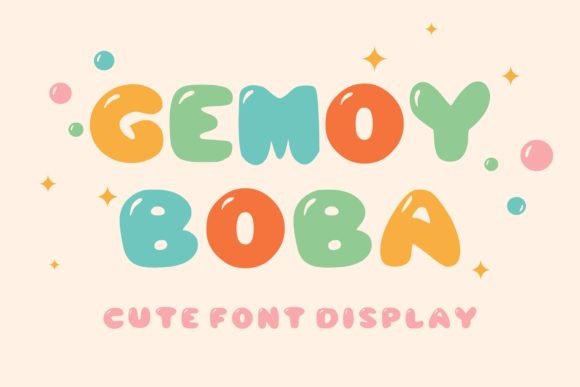
Introducing Gemoy Boba Font: The Perfect Choice for Whimsical Designs
In the world of typography, fonts play a crucial role in conveying emotions and setting the tone for various designs. If you’re looking for a font that exudes a playful and youthful vibe, look no further than the Gemoy Boba Font. This delightful font is perfect for those who want to add a touch of whimsy to their designs, making it ideal for creating visually appealing content for kids and adults alike.
What Makes Gemoy Boba Font So Special?
Gemoy Boba Font is a unique and charming typeface that boasts a distinctive, bubbly style reminiscent of boba tea. Its playful and carefree design makes it perfect for a wide range of applications, from designing t-shirts and tote bags to creating stickers, wedding invitations, logos, cards, and quotes.
- Playful and Whimsical: The Gemoy Boba Font features a bubbly, irregular design that adds a touch of playfulness to any project.
- Kid-Friendly: The font’s youthful and energetic vibe makes it perfect for designs targeting children or creating content for kids’ parties and events.
- Versatile: Gemoy Boba Font can be used for a wide range of applications, from apparel and accessories to stationery and digital content.
- Easily Readable: Despite its playful design, the font remains easily readable, making it perfect for creating quotes, captions, and short texts.
Design Ideas Using Gemoy Boba Font
The Gemoy Boba Font is an incredibly versatile typeface that can be used in various design projects. Here are some inspiring ideas to get you started:
T-Shirts and Apparel
Create fun and playful t-shirts, hoodies, and hats for kids and adults using the Gemoy Boba Font. You can add cute graphics, illustrations, or patterns to make your designs more appealing.
Tote Bags and Accessories
Add a touch of whimsy to tote bags, stickers, and other accessories using the Gemoy Boba Font. This font is perfect for creating fun and colorful designs that make great gifts or promotional items.
Wedding Invitations and Stationery
Yes, you read that right! The Gemoy Boba Font can also be used for creating unique and playful wedding invitations, cards, and other stationery items. Add some cute illustrations or graphics to make your designs stand out.
Logos and Branding
The Gemoy Boba Font can be used to create fun and memorable logos for kids’ brands, restaurants, or businesses that cater to a youthful audience.
Digital Content and Social Media
Use the Gemoy Boba Font to create engaging digital content, such as social media graphics, quotes, and captions that appeal to a younger audience.
Tips and Tricks for Using Gemoy Boba Font
To get the most out of the Gemoy Boba Font, here are some valuable tips and tricks to keep in mind:
- Experiment with Colors: The Gemoy Boba Font looks great in bright, bold colors. Don’t be afraid to experiment with different color combinations to make your designs pop.
- Add Graphics and Illustrations: The font pairs well with cute graphics and illustrations. Add some fun elements to make your designs more engaging.
- Play with Font Sizes: Experiment with different font sizes to create visual interest and hierarchy in your designs.
- Mix and Match with Other Fonts: The Gemoy Boba Font can be paired with other fonts to create a unique look. Experiment with different font combinations to find the perfect match.
In conclusion, the Gemoy Boba Font is a delightful and versatile typeface that’s perfect for creating whimsical designs that appeal to kids and adults alike. Its playful and bubbly style makes it ideal for a wide range of applications, from apparel and accessories to stationery and digital content. With its ease of use and endless design possibilities, the Gemoy Boba Font is a must-have for any designer or crafty enthusiast.